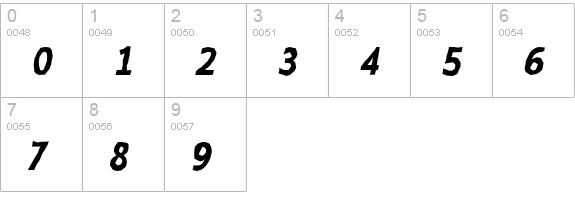
Emory Bold Italic Font Details
Emory Bold Italic is a strong, high-contrast, italic variant in the Emory typeface family \xE2\x80\x94 well suited to headlines, attention-grabbing titles, and strong calls-to-action.
Emory Bold Italic font is a striking and versatile typeface that exudes confidence and modernity. With its bold strokes and elegant italics, this font is perfect for creating eye-catching designs that demand attention. Whether used for headlines, logos, or branding materials, Emory Bold Italic makes a bold statement. The best part? Emory Bold Italic font is available for free download at FontsMarket.com. Now you can elevate your design projects with this premium font without any cost. Take advantage of this opportunity to enhance your creative work with Emory Bold Italic's unique style and flair. Download it today and unleash your creativity!